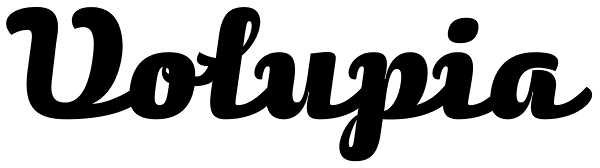
Volupia
I started designing Volupia in 2004 and the main goal was to create a very casual font with some characteristics than we can find in some old commercial advertisements. After designing the basic character set I decided to go OpenType because it...